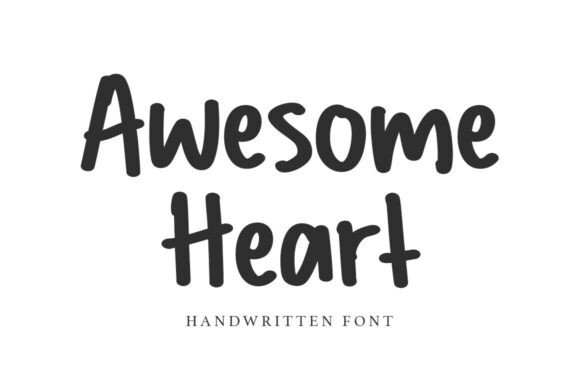
The Awesome Heart Font: A Designer’s Dream Come True
I’ll never forget the design project that led me to discover the Awesome Heart font. I was working on a fun sticker design for a client’s social media campaign, and I needed a bold, eye-catching typeface that would make their message stand out. After hours of scouring font websites and trying out different options, I stumbled upon the Awesome Heart font. It was love at first sight! 😍
The chunky, marker-style strokes and playful vibe instantly captured the tone I was going for. I knew right then and there that I had found the perfect font for the job. And, as it turned out, the Awesome Heart font was the ultimate “feel-good” typeface that exceeded my expectations in every way.
- ✨ Bold and Impactful: The Awesome Heart font is designed to make a statement. Its bold, chunky strokes make it perfect for headlines, stickers, and bold apparel designs.
- ✅ Easy to Read: Despite its bold style, the font is surprisingly easy to read, even at smaller sizes.
- 🎉 Fun and Playful: The Awesome Heart font has a contagious energy that’s perfect for designs that need a bit of personality.
While the Awesome Heart font is amazing, there are a few things to keep in mind:
- 🤔 Limited Use Cases: Due to its bold style, the Awesome Heart font works best for headlines, titles, and short phrases. It may not be the best choice for longer blocks of text.
- ⚠️ Kerning Issues: As with any font, kerning can be a bit tricky. Make sure to adjust the kerning to ensure the best results.
The Designer Inspiration Behind Awesome Heart
The Awesome Heart font was designed with one goal in mind: to create a typeface that would spread joy and positivity. The designer, inspired by the world of hand-drawn signage and street art, set out to create a font that would capture the energy and playfulness of these art forms.
With its bold, chunky strokes and infectious vibe, the Awesome Heart font is the perfect reflection of this design philosophy.
| Font Name | Awesome Heart Font |
| Author | Pretty Glyphs |
A: The Awesome Heart font works best for headlines, titles, and short phrases. It’s perfect for designs that need a bold, eye-catching typeface.
A: Currently, the Awesome Heart font is available in one weight. However, the designer may release additional weights in the future.